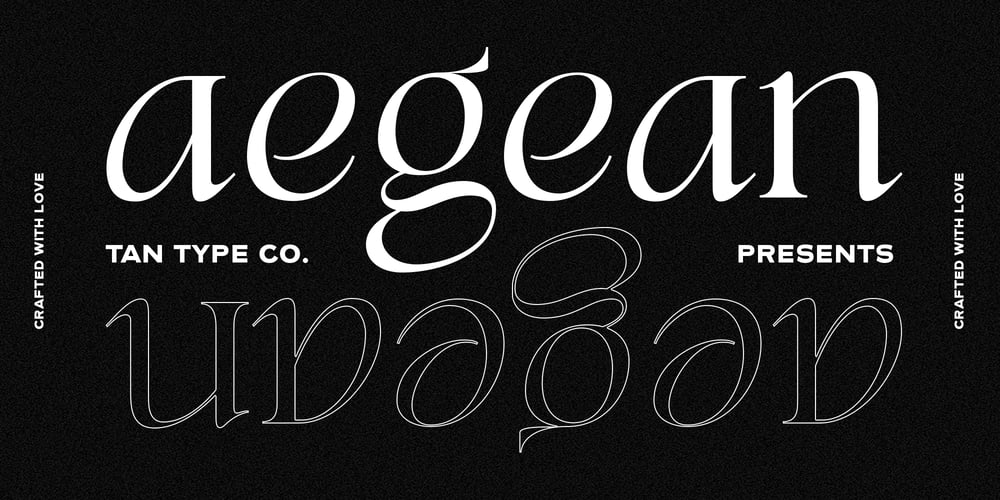
TAN Aegean
TAN Aegean font
TAN Aegean Font Family was designed by Novia Jonatan and published by TANTypeCo.. TAN Aegean contains 1 styles and family package options. TAN AEGEAN is an elegant display serif. It’s classic and versatile with a touch of playfulness, it’s perfect for any of your design needs.